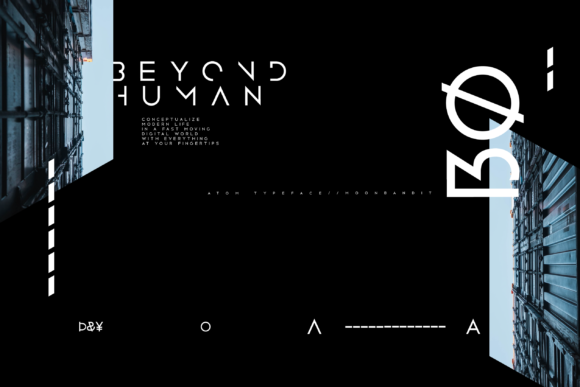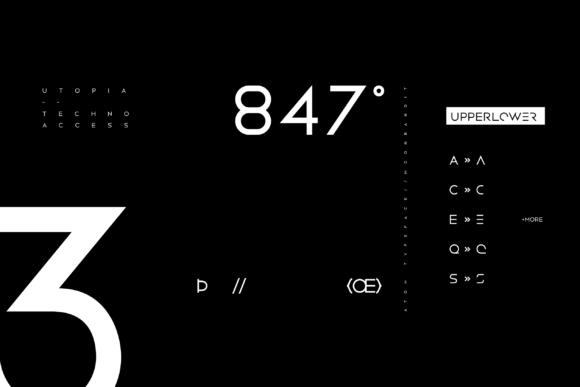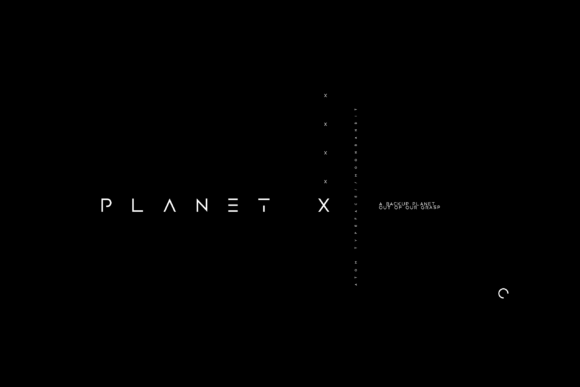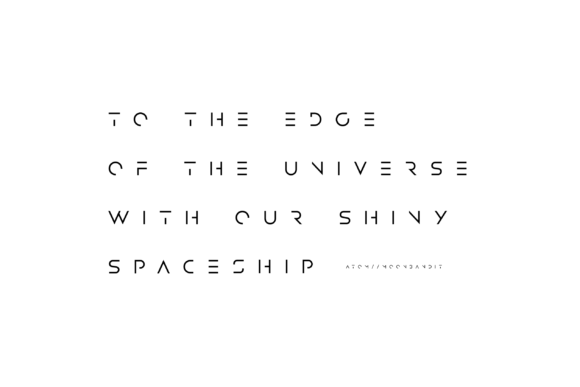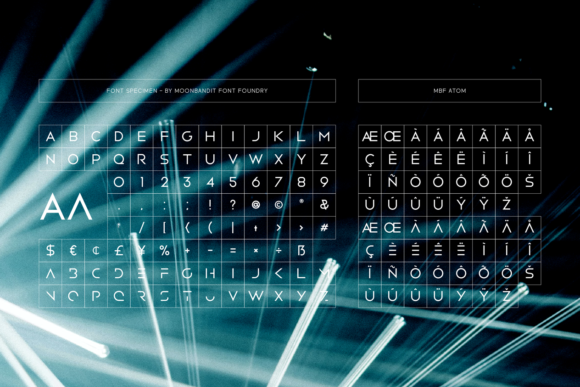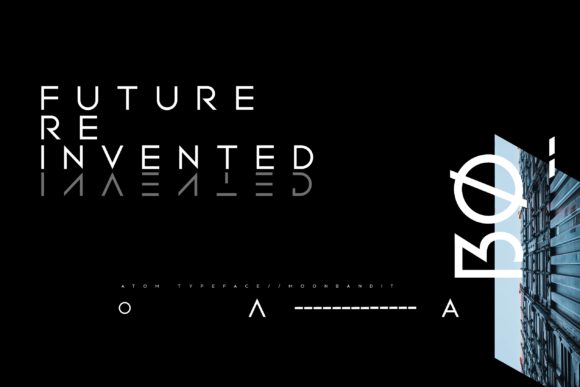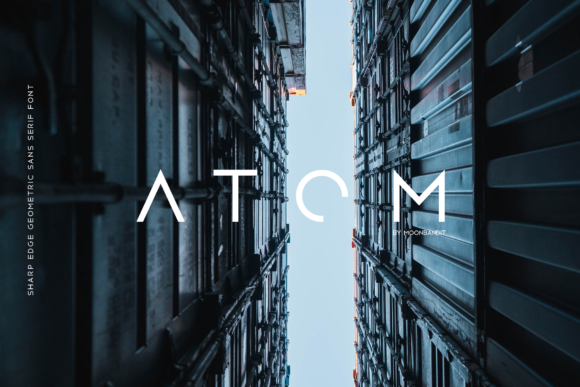
Introducing Atom Font: The Ultimate Display Font for Bold Designs
Are you tired of using the same old fonts for your designs? Look no further than Atom Font, a unique and striking display font that’s perfect for making a statement. With its thin geometric lines and sharp edges, Atom Font is sure to grab attention and leave a lasting impression.
What Makes Atom Font Special?
Atom Font is a one-of-a-kind display font that features thin geometric lines with sharp edges, giving it a distinctive and modern look. This font is perfect for designers and crafters who want to add a touch of sophistication and elegance to their work. Whether you’re creating a logo, poster, movie title, or headline, Atom Font is the perfect choice.
Key Features of Atom Font
- Unique Geometric Design: Atom Font features thin geometric lines that give it a distinctive and modern look.
- Sharp Edges: The sharp edges of Atom Font ensure a striking exposure that’s sure to grab attention.
- Versatile: Atom Font is perfect for a variety of design projects, including logos, posters, movies, headlines, and more.
- Elegant and Sophisticated: Atom Font adds a touch of elegance and sophistication to any design.
Atom Font is a must-have for designers and crafters who want to take their work to the next level. Whether you’re creating a logo for a new business, designing a poster for a event, or working on a movie title sequence, Atom Font is the perfect choice. Its unique and modern design ensures that your work will stand out from the crowd and leave a lasting impression.
Use Cases for Atom Font
Atom Font is versatile and can be used for a variety of design projects, including:
- Logos: Create a striking and memorable logo for your business or brand with Atom Font.
- Posters: Design eye-catching posters for events, promotions, or advertisements with Atom Font.
- Movies and Video Titles: Add a touch of sophistication and elegance to your movie or video titles with Atom Font.
- Headlines: Use Atom Font to create bold and attention-grabbing headlines for your blog, website, or social media.
Tips for Using Atom Font
Here are some tips for getting the most out of Atom Font:
- Use it sparingly: Atom Font is a bold and striking font, so use it sparingly to avoid overwhelming your design.
- Pair it with other fonts: Atom Font pairs well with other fonts, so experiment with different combinations to find the perfect look for your design.
- Adjust the size and color: Experiment with different sizes and colors to find the perfect look for your design.
Atom Font is a unique and striking display font that’s perfect for designers and crafters who want to make a statement. With its thin geometric lines and sharp edges, Atom Font is sure to grab attention and leave a lasting impression. Whether you’re creating a logo, poster, movie title, or headline, Atom Font is the perfect choice. So why wait? Download Atom Font today and take your designs to the next level!